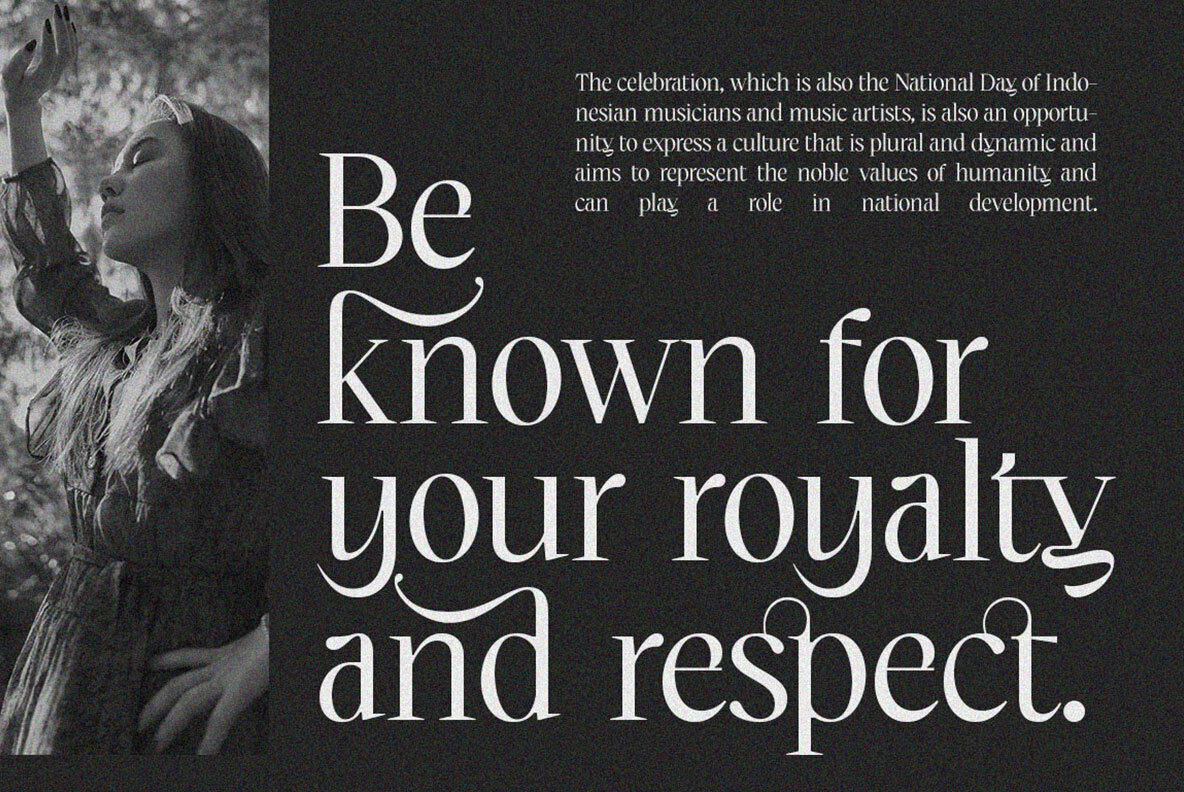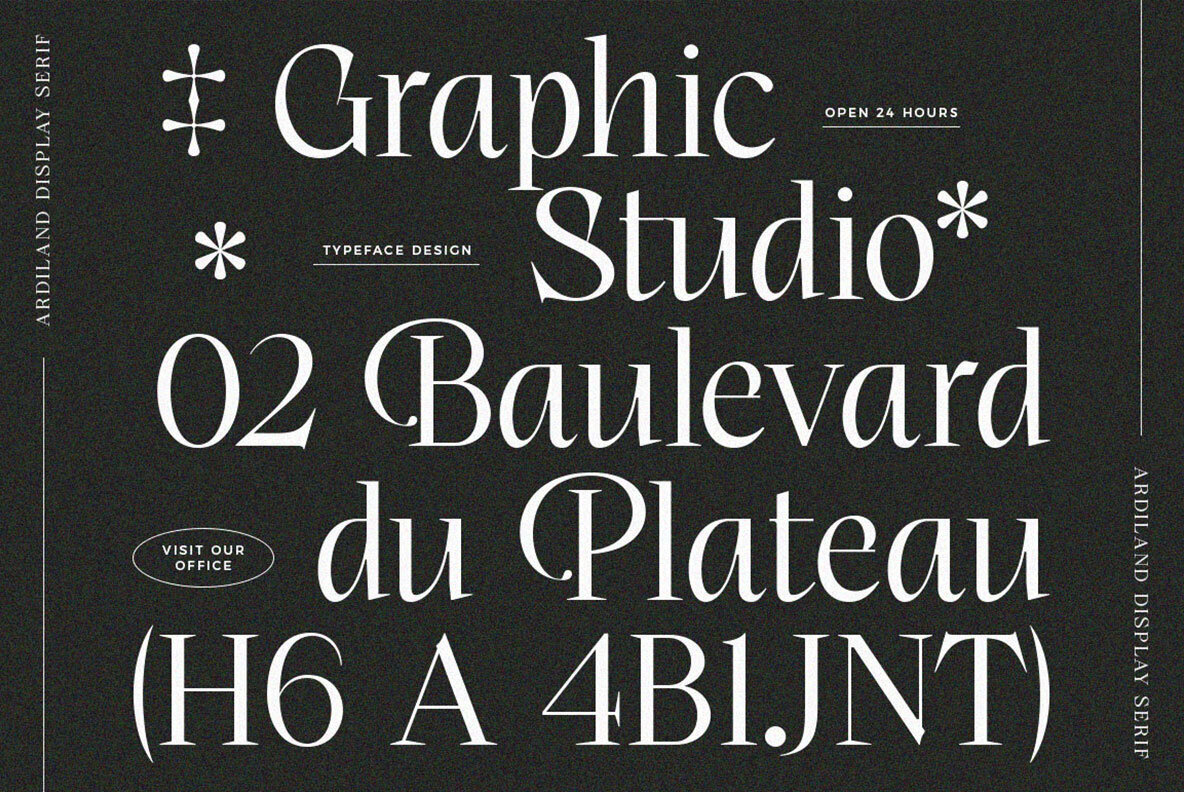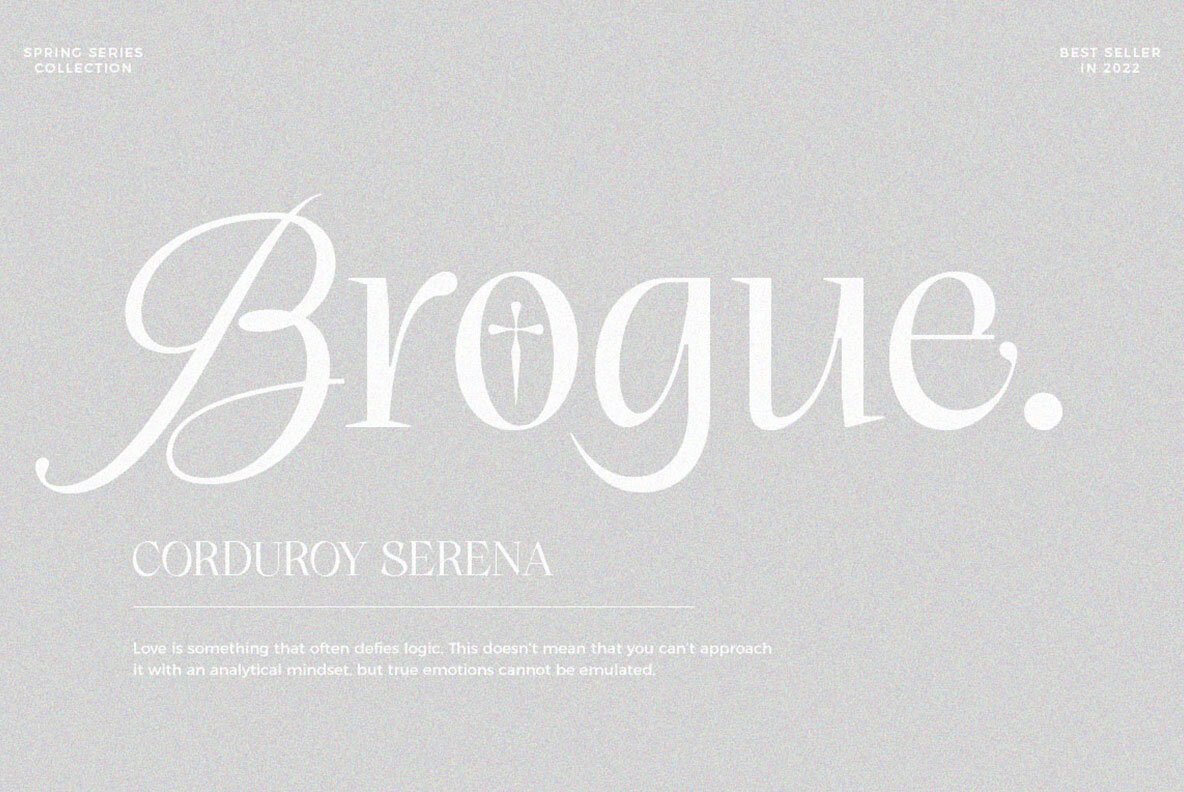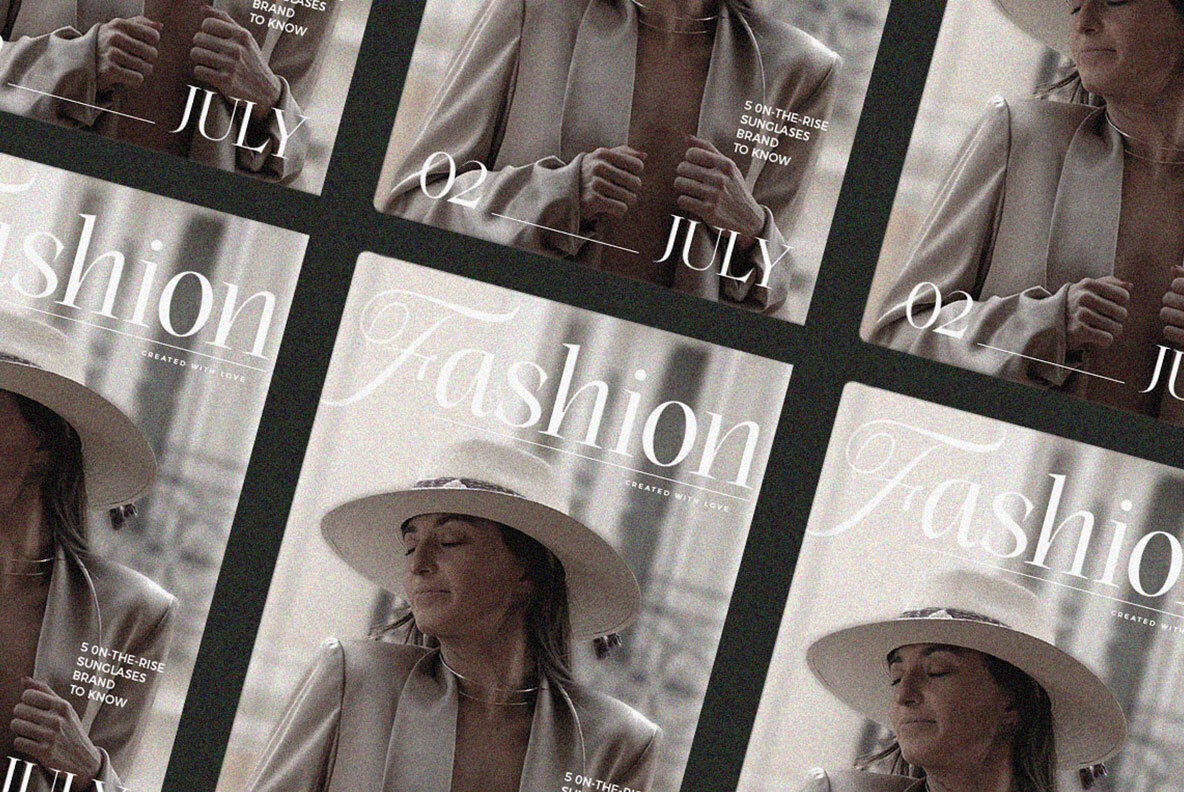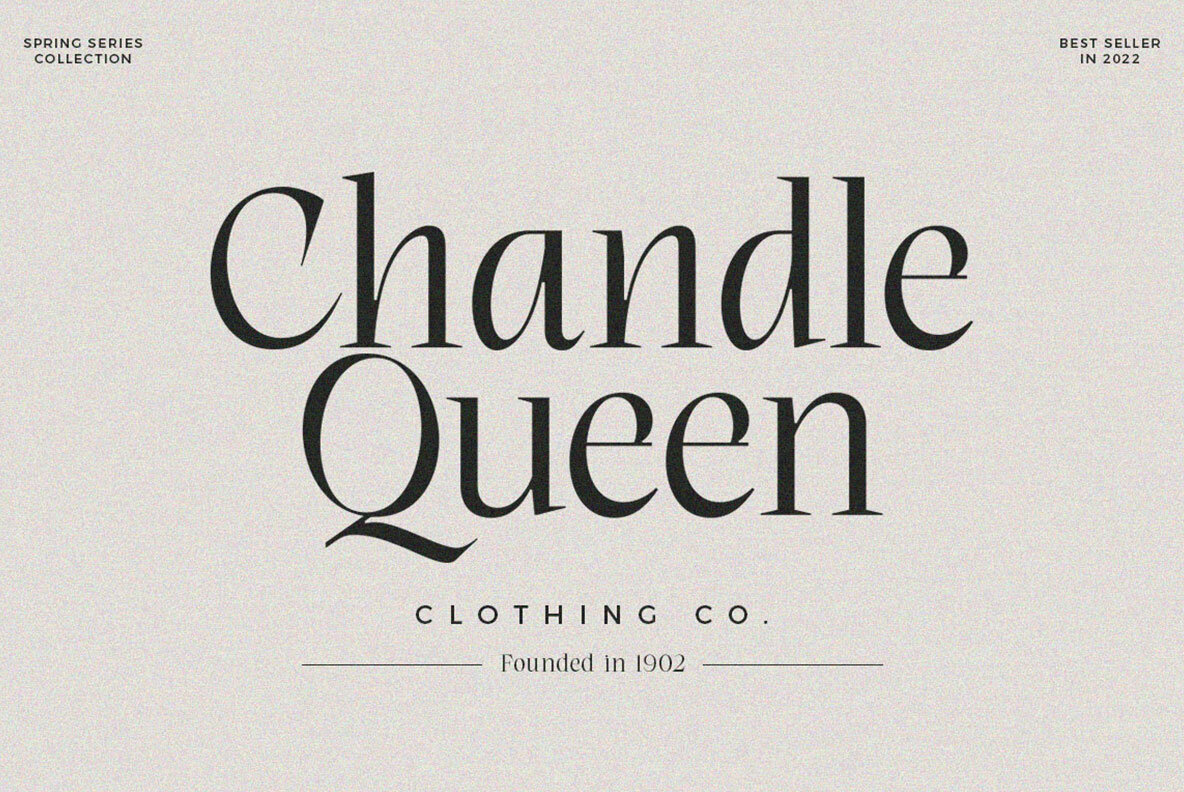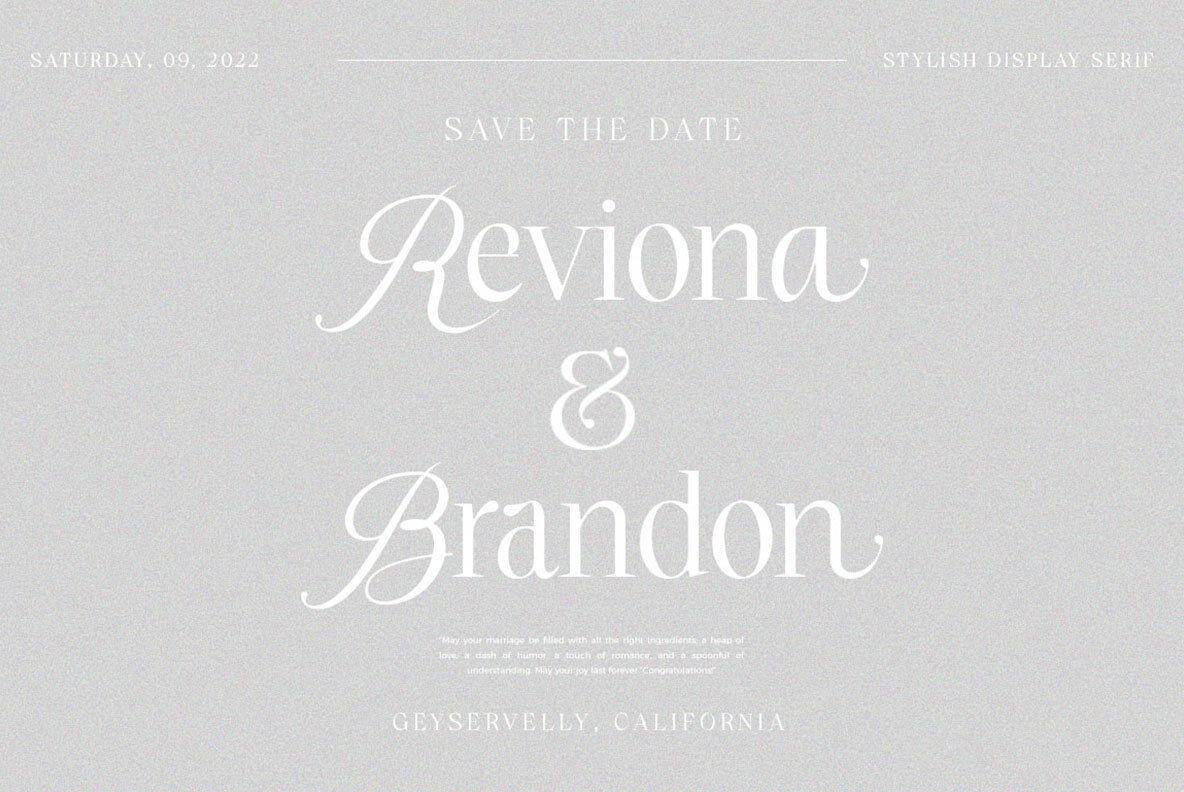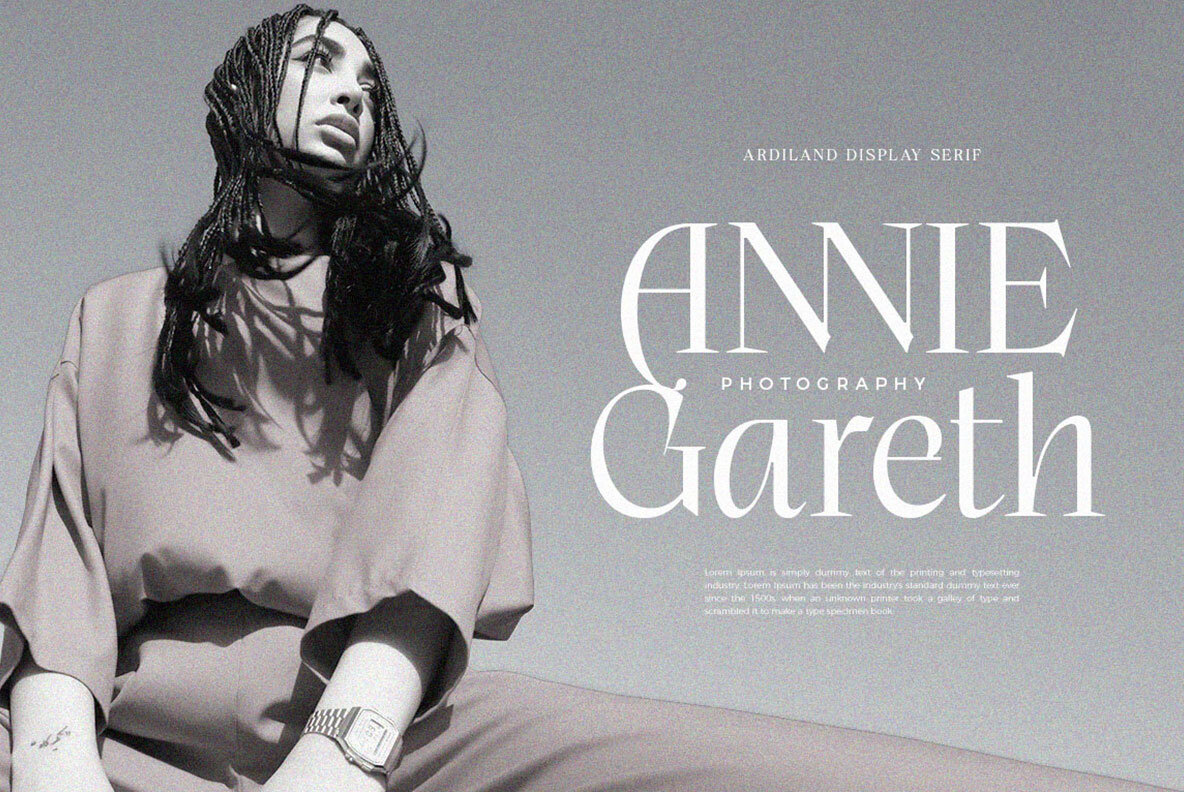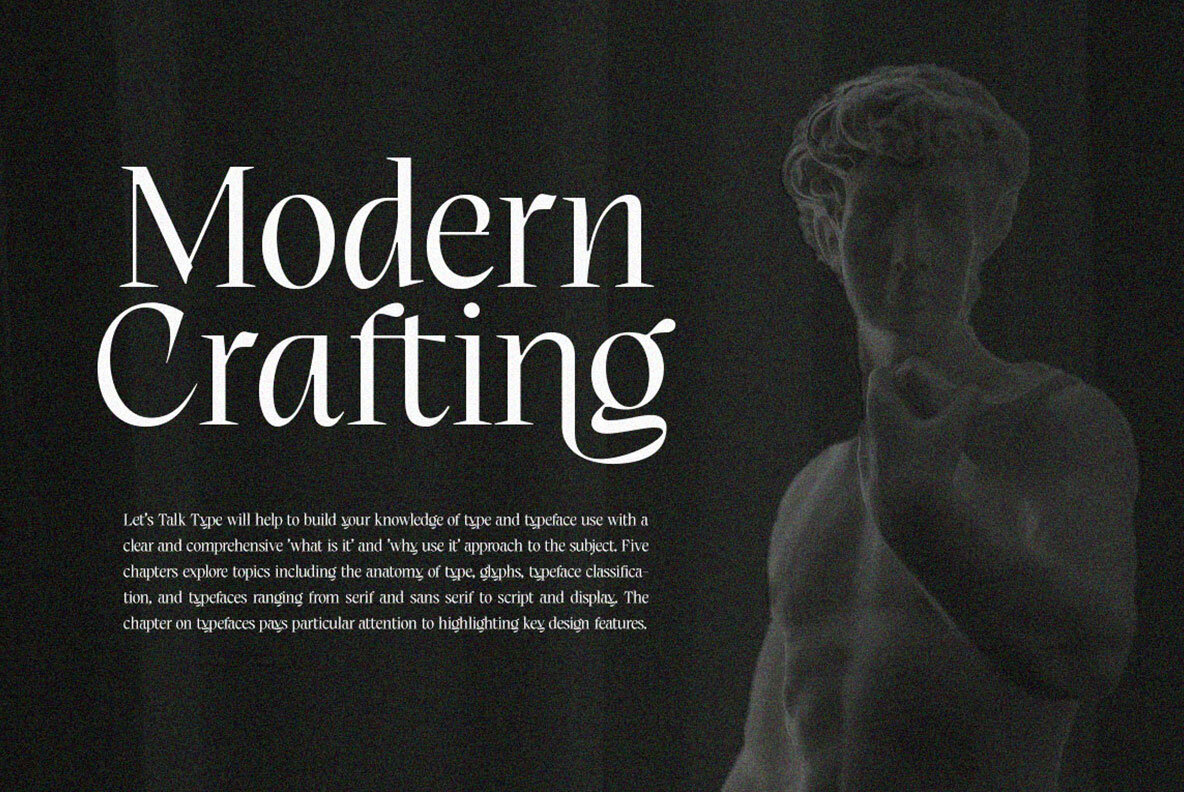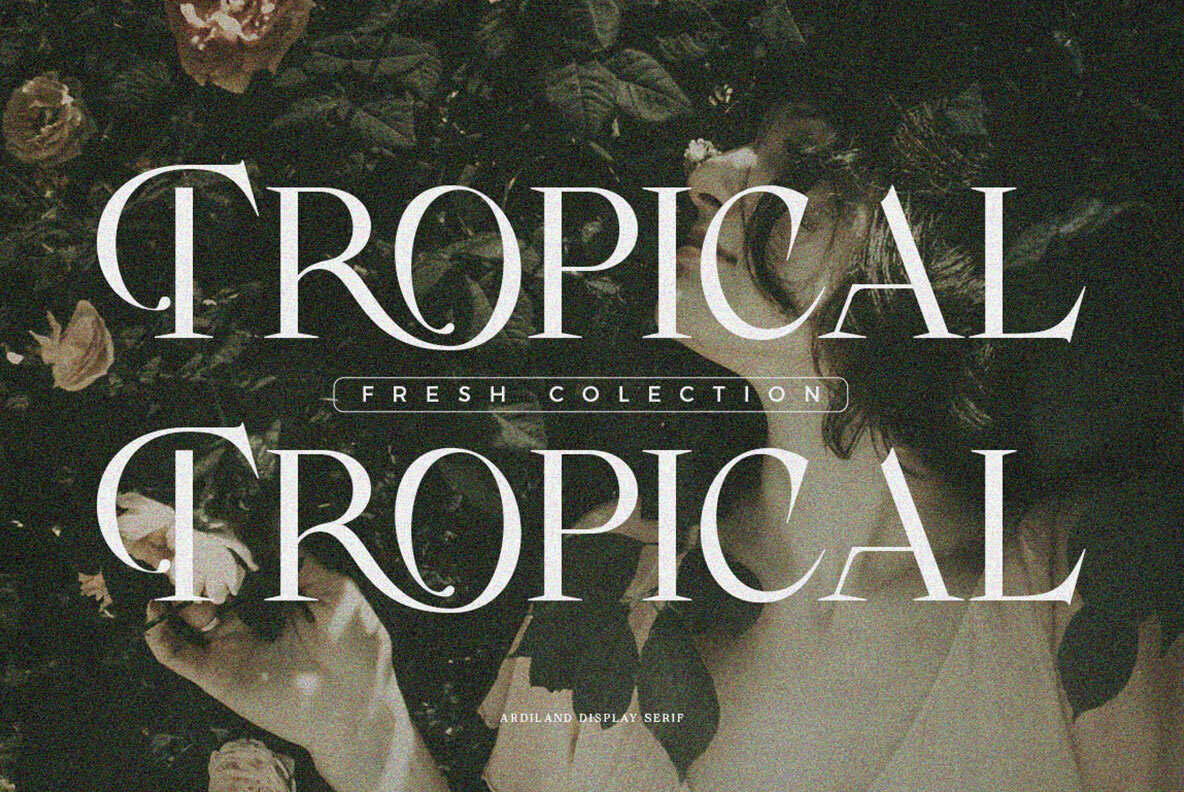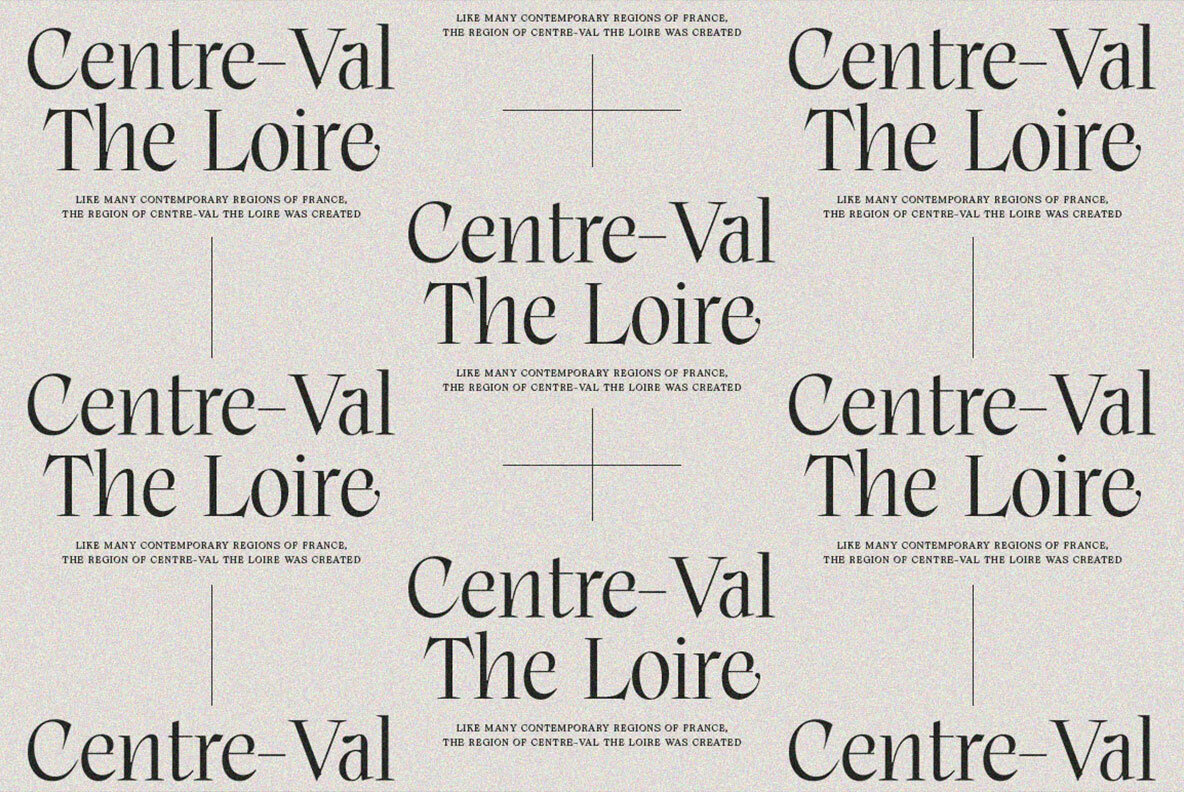
Ardiland Font
Ardiland is a modern serif font to apply to many graphic or editorial design projects. A classy, unique high contrast, and light binding style for your upcoming projects. for feminine logo signs, fashion & editorial design heads, branding projects, Apparel Branding, packaging, magazine titles, advertisements, T-shirts, postcards and other special occasions.
Alternatives & Ligatures
Numbers & punctuation
Character with accent
Support Multiple Languages